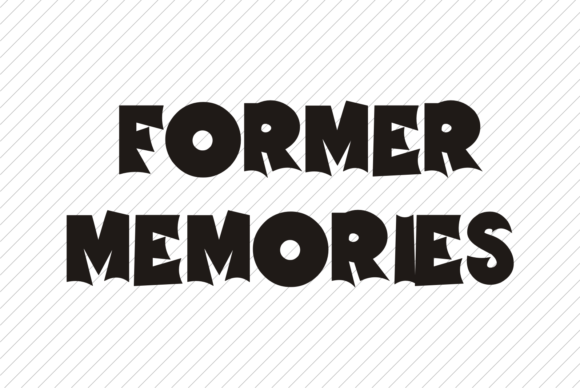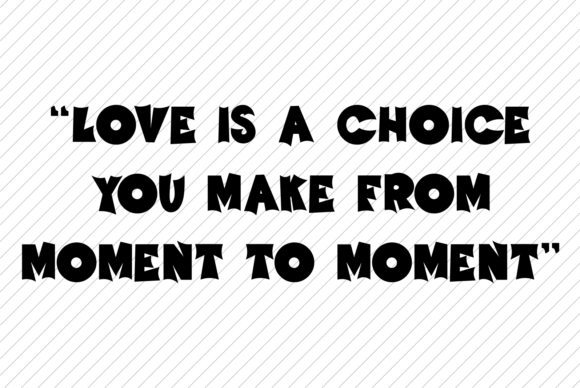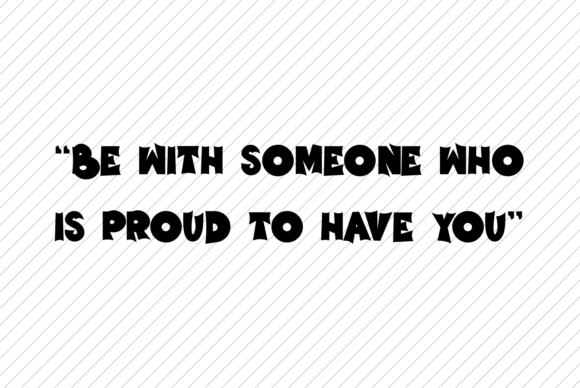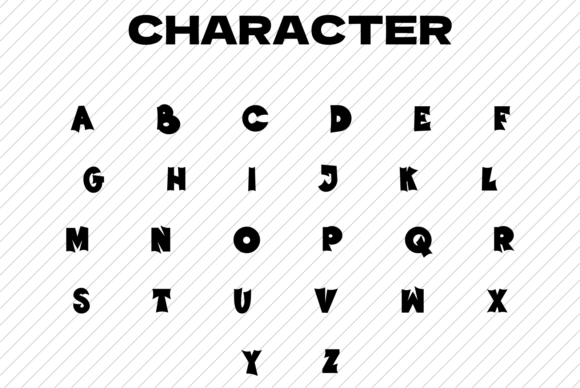
Introducing Belita Anna Font: The Ultimate Display Font for Stunning Creations
Are you tired of using the same old fonts for your designs? Look no further! Belita Anna Font is here to revolutionize your creative projects with its unique, thick-lettered, and cool display style. This simple yet powerful font is designed to make your creations stand out from the crowd and leave a lasting impression on your audience.
The Power of Belita Anna Font
Belita Anna Font is a game-changer for designers and crafters who want to add a touch of sophistication and style to their work. With its strong visual effect, this font can instantly elevate your designs and make them more appealing than ever before. Whether you’re working on a logo, brochure, or social media post, Belita Anna Font is the perfect choice to make your content shine.
Key Features of Belita Anna Font
- Thick-Lettered Design: Belita Anna Font boasts a thick-lettered design that gives it a bold and eye-catching appearance.
- Cool Display Style: This font features a cool display style that’s perfect for creating stunning headings, titles, and captions.
- Simple yet Effective: Despite its simplicity, Belita Anna Font packs a punch with its strong visual effect that grabs attention.
- Versatile: This font is versatile and can be used for a wide range of design projects, from logos and brochures to social media posts and more.
Why Choose Belita Anna Font?
So, why should you choose Belita Anna Font for your design projects? Here are just a few reasons:
- Unique Style: Belita Anna Font offers a unique style that’s sure to set your designs apart from the rest.
- Easy to Read: Despite its bold design, Belita Anna Font is easy to read, making it perfect for use in a variety of design projects.
- Customizable: This font is highly customizable, allowing you to adjust the size, color, and style to fit your design needs.
How to Use Belita Anna Font